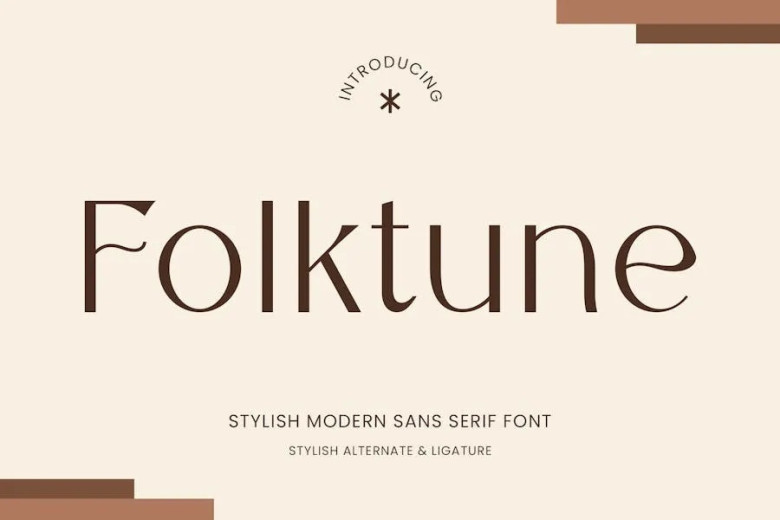
Folktune Font
Falktune is a Nice Clean and Fancy Sans Serif Font that has a lowercase, uppercase, symbols, and available for multi-language. This font contains many ligature as compared to the other fonts of the Windows Vista. Folktune – Stylish Sans Serif Font and one of the unique features consists of ligatures, stylistic set and many more. this font ideal for fashion, branding, catalogue and other design that you wish.
Folktune Sans Serif Font